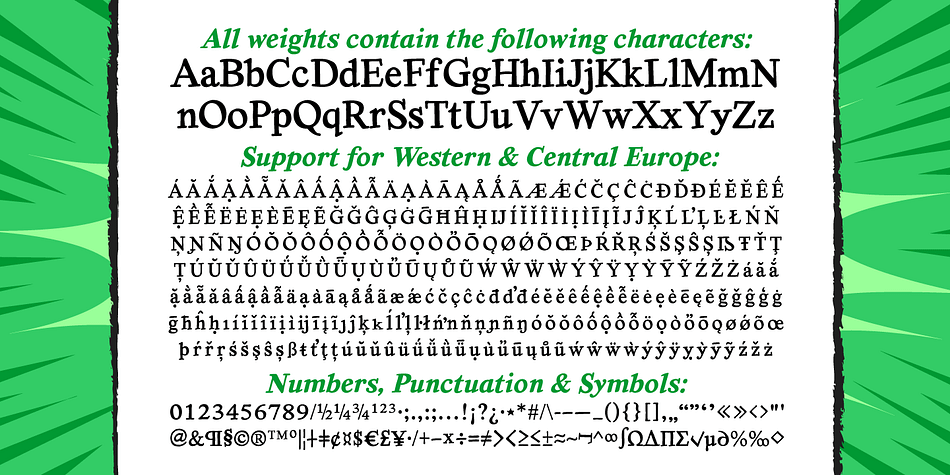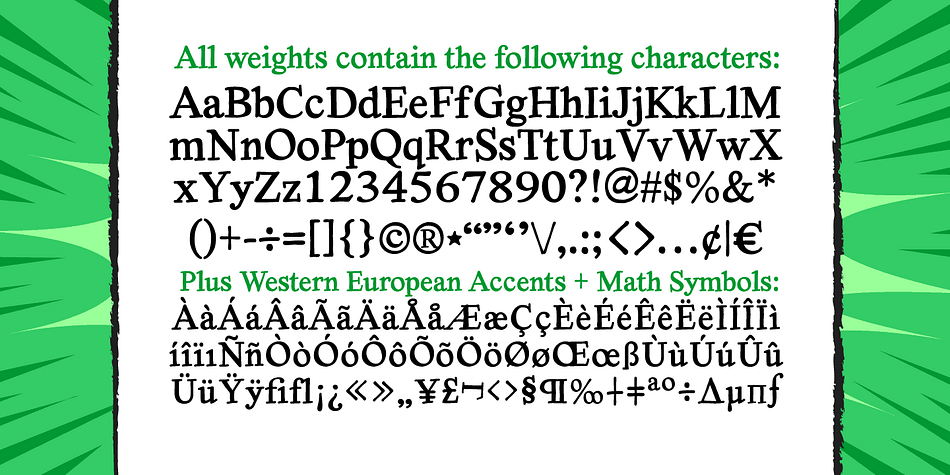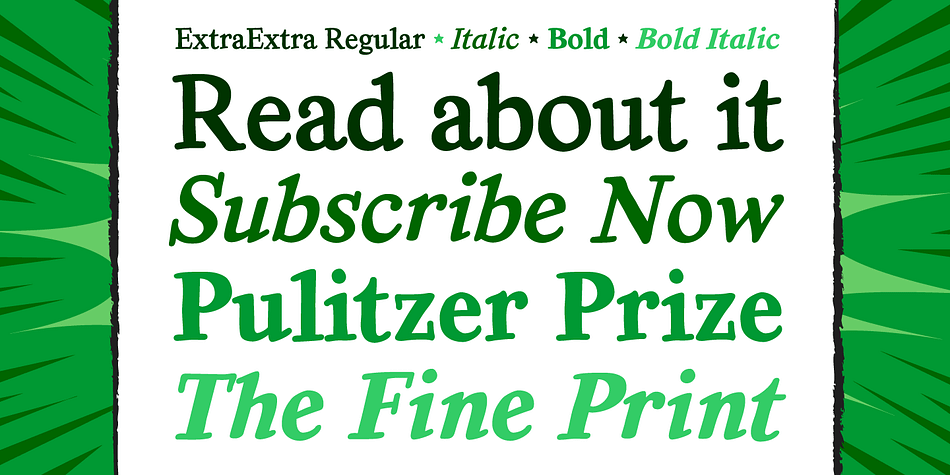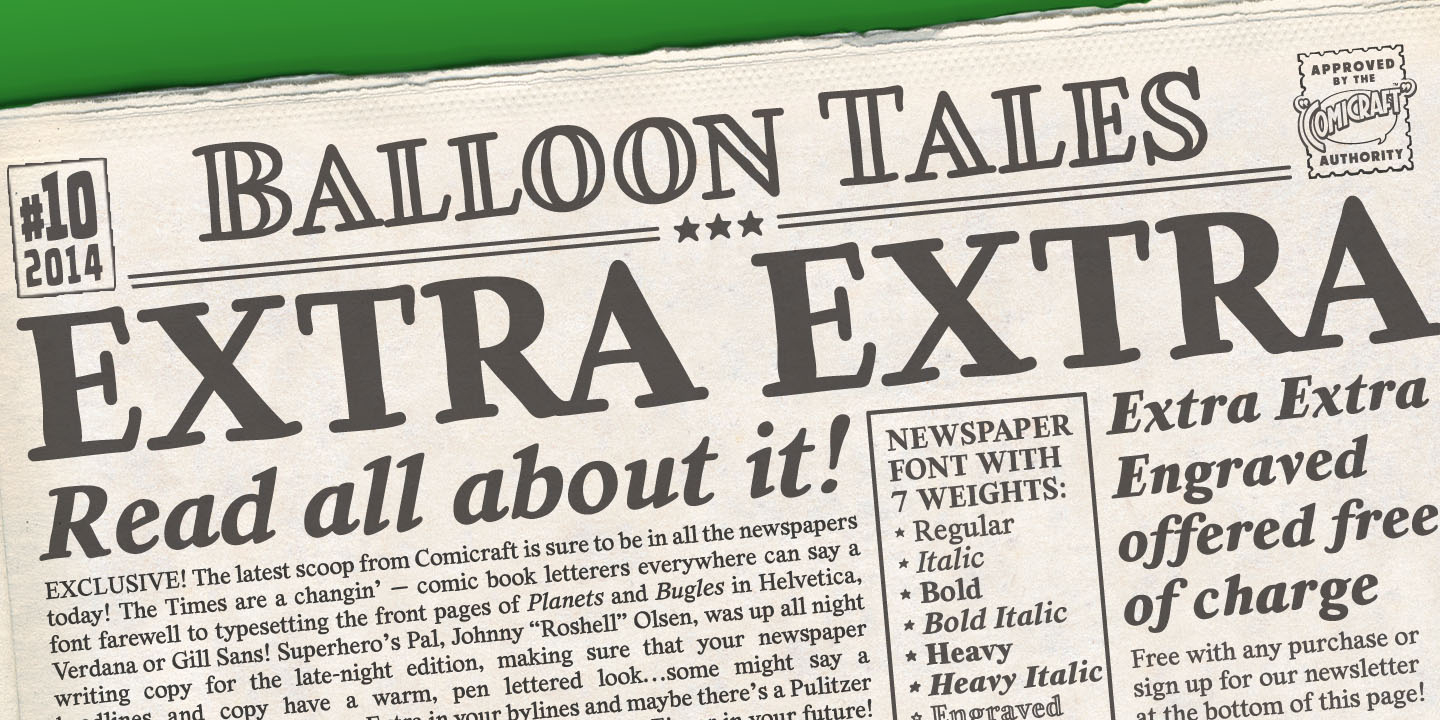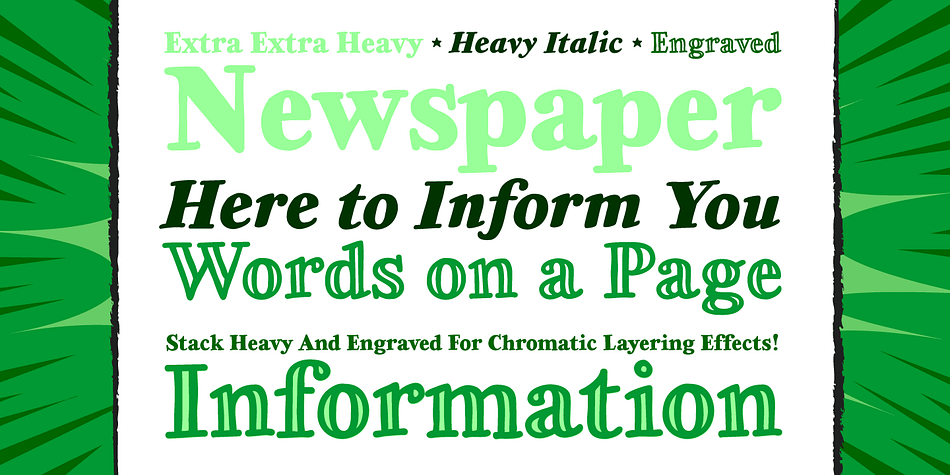
Designed by John Roshell, Extra Extra is a hand drawn and hand display font family. This typeface has seven styles and was published by Comicraft.
EXCLUSIVE! Read all about it! The latest scoop from Comicraft is sure to be in all the newspapers today! The Times are a changin’—comic book letterers everywhere can say a font farewell to typesetting the front pages of Planets and Bugles in Helvetica, Verdana or Gill Sans! Superhero’s Pal, Johnny “Roshell” Olsen, was up all night writing copy for the late-night edition, making sure that your newspaper headlines and copy have a warm, pen lettered look… some might say a Rosen-glow! Put a little Extra Extra in your bylines and maybe there’s a Pulitzer and an Eisner in your future!
Seven fonts (Regular, Italic, Bold, Bold Italic, Heavy, Heavy Italic & Engraved) with upper and lower case alphabets and Western European international characters.